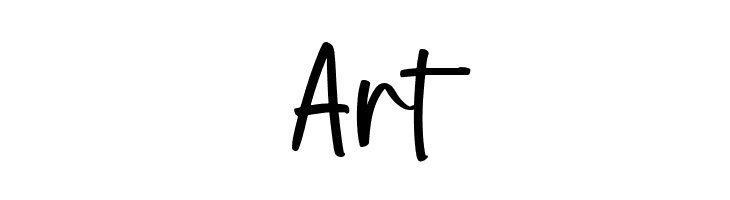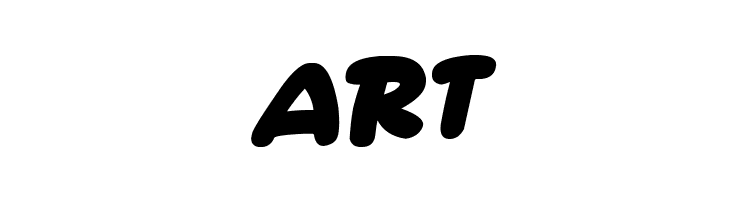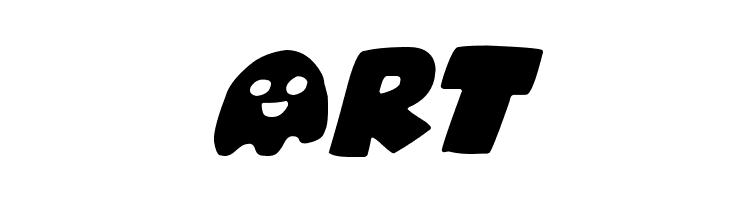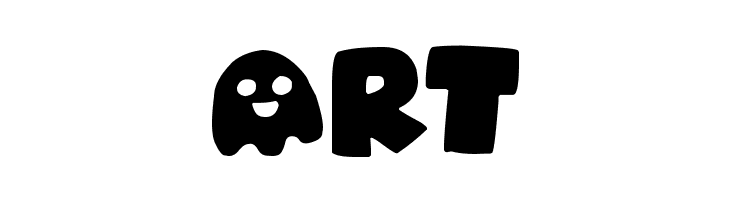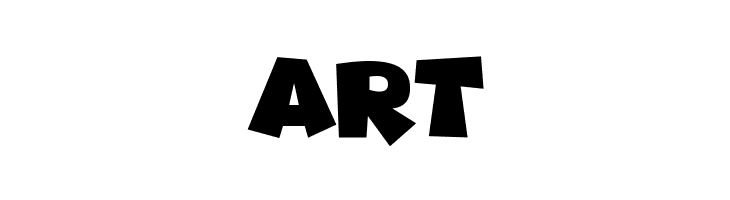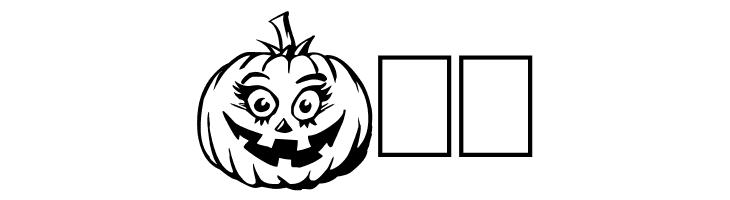
• HalloCuties
A decorative Halloween-themed font with playful and spooky icons.
• Hallowed Eve Sample
A bold, dripping font ideal for spooky, Halloween-themed designs.
• halloween day's
A playful, spooky font with a hand-drawn, whimsical style.
• Halloween Dreams Script
A playful, hand-drawn script font with a whimsical and informal style.
• Halloween Fears Italic
A bold, italic serif font with a gothic and dramatic flair.
• Halloween Funtime Italic
A bold, playful font with a Halloween theme and italicized style.
• Halloween Guises
A bold, Halloween-themed decorative font with playful, spooky elements.
• Halloween Guises Italic
A bold, Halloween-themed font with playful, spooky elements and an italicized slant.
• Halloween Horrors
A bold, playful font with a spooky, Halloween-inspired design.
• Halloween Horrors Italic
A bold, italicized font with a spooky, Halloween-themed design.